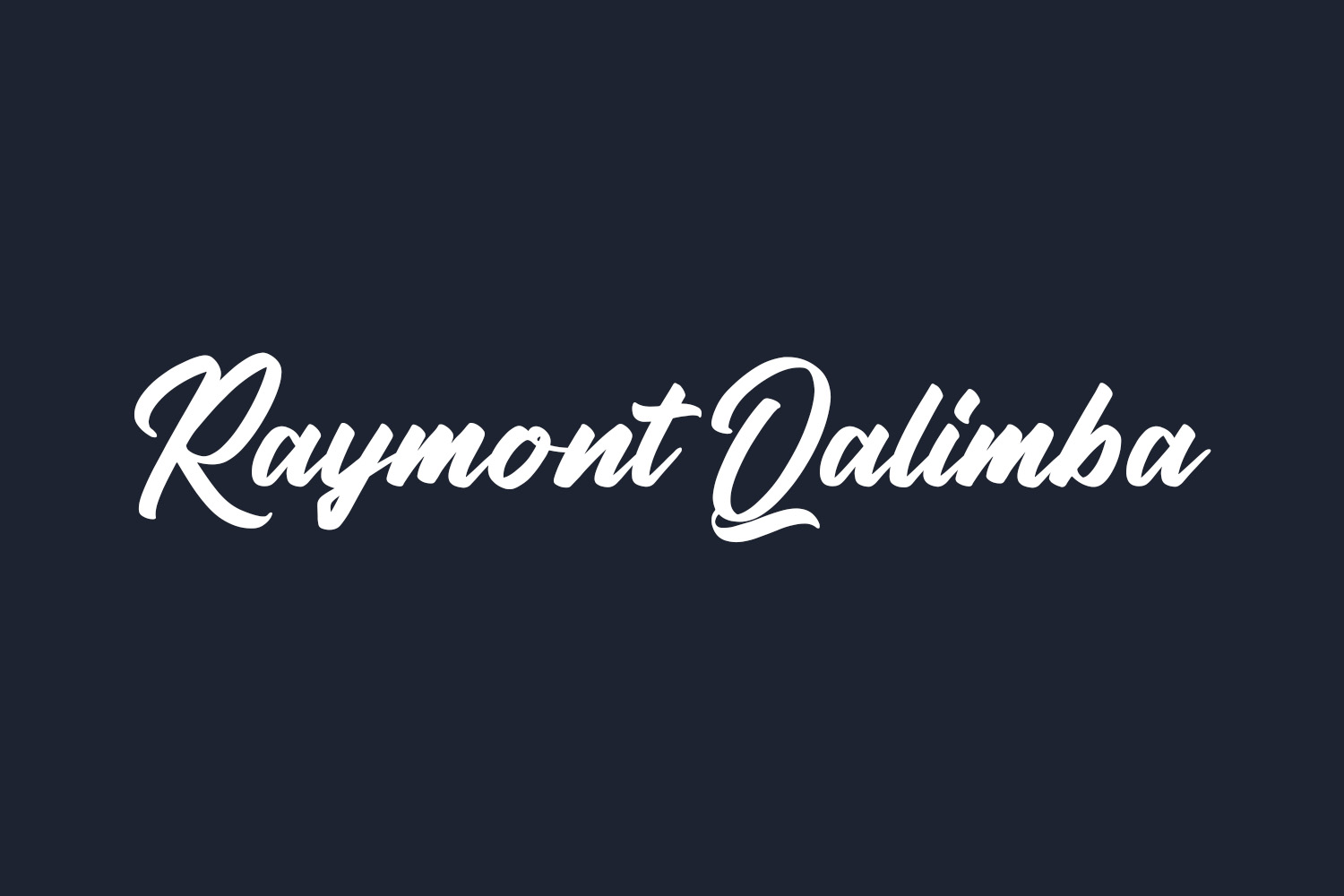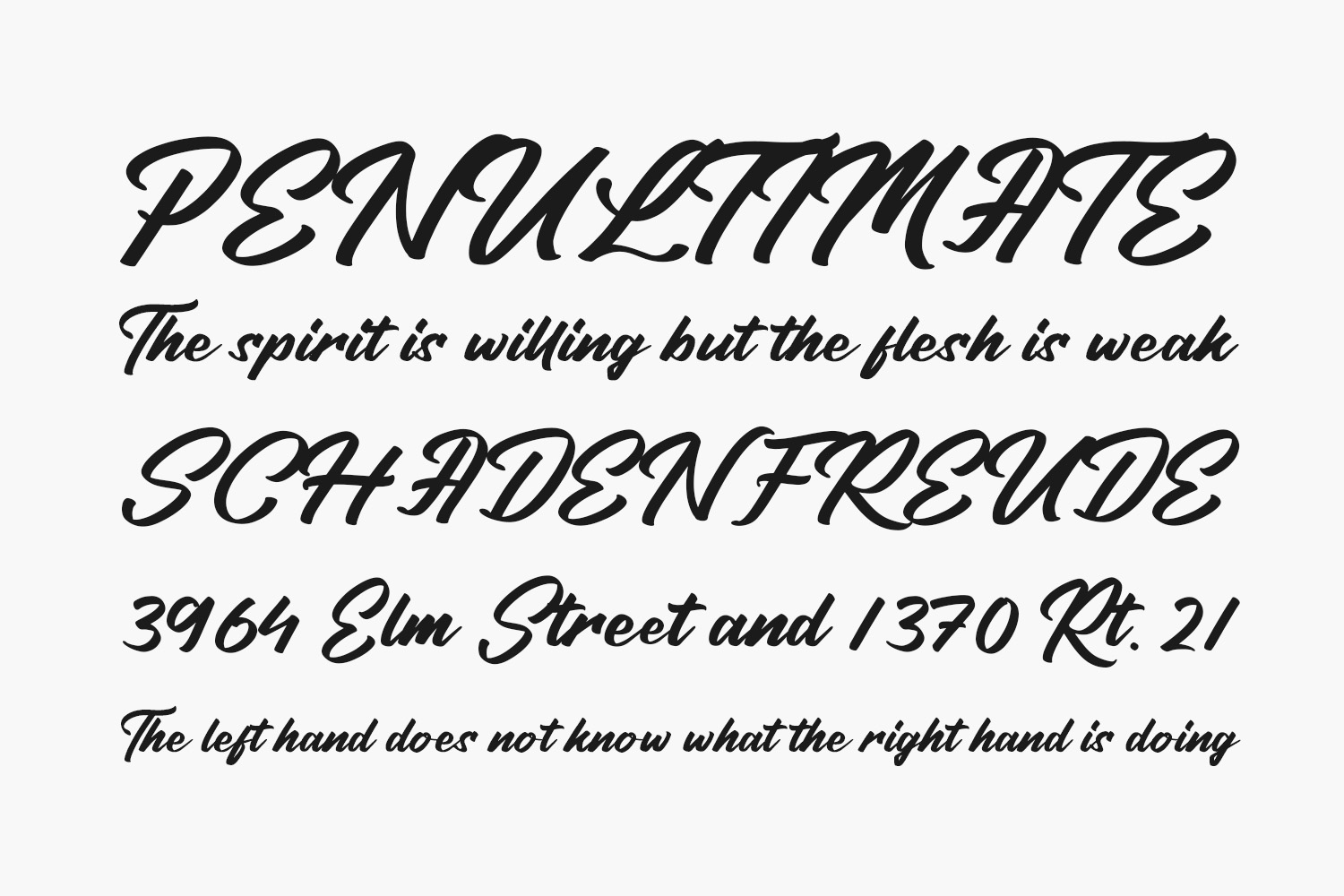
Raymont Qalimba Free Font Family is a lovely script font featuring charming, playful characters that seem to dance along the baseline. Add this font to your most creative ideas, and notice how it makes them stand out. Raymont Qalimba Free Font Family was designed by Rissyletter Studio and is free for personal use only. Please purchase the full version for commercial use.
Designed by Perspectype Studio
Raymont Qalimba Regular The quick brown fox jumps over the lazy dog
Raymont Qalimba Italic The quick brown fox jumps over the lazy dog